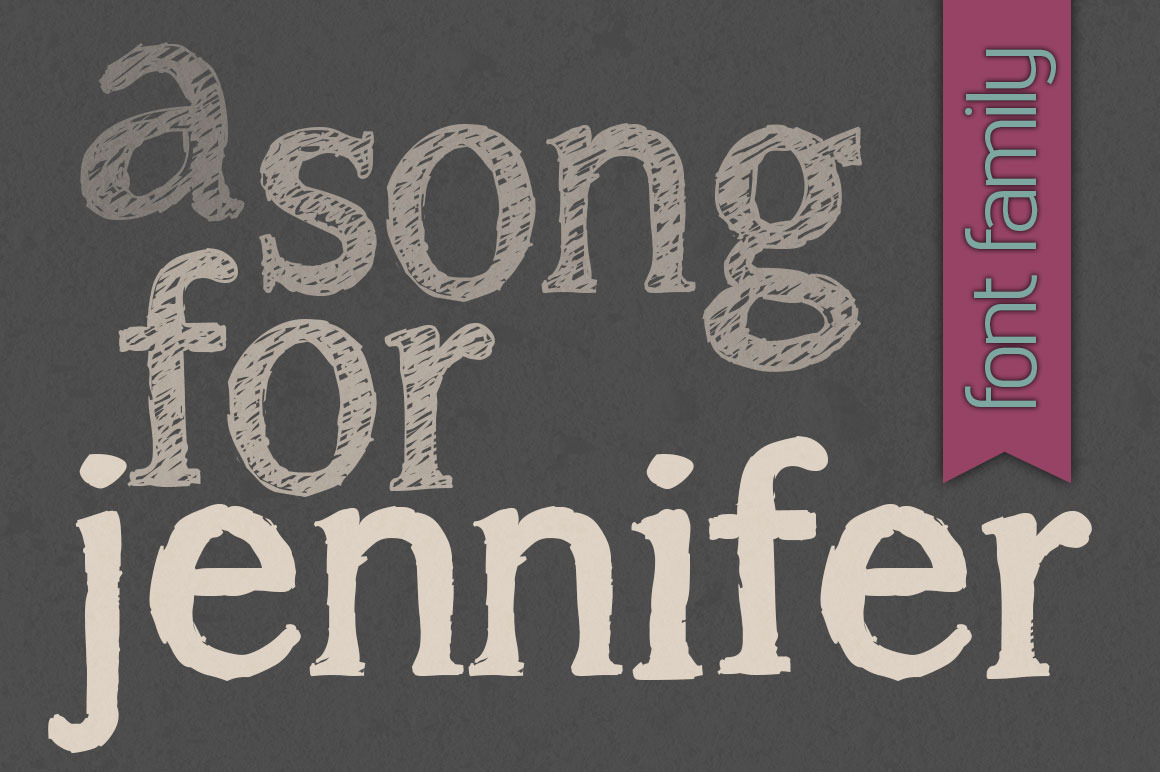
A Song for Jennifer Font Family
A song for Jennifer is a sketchy serif that sets the mood. Great for adding a home-made touch. This font family comes with a bold, solid version!